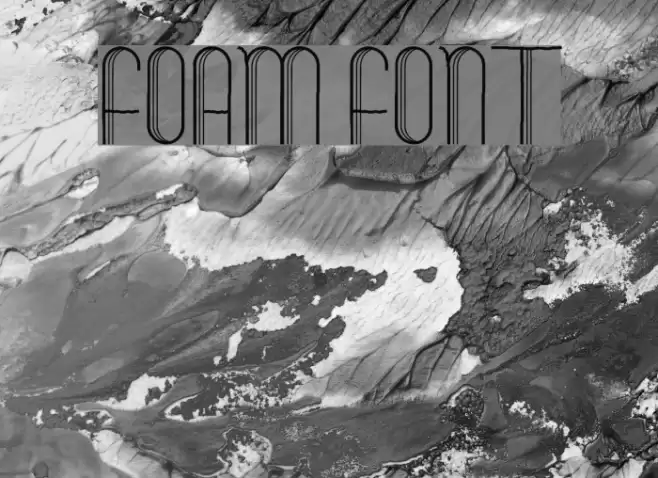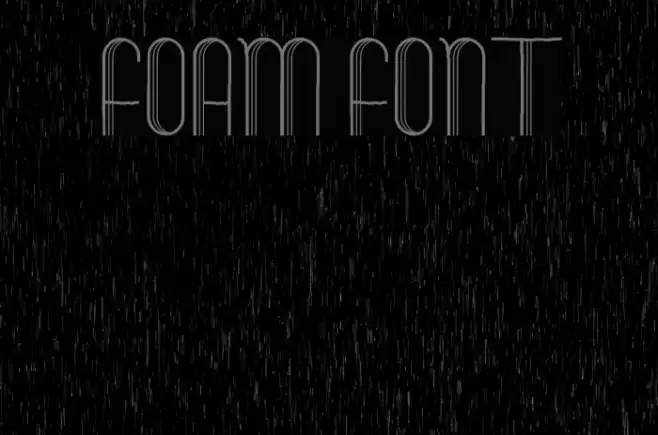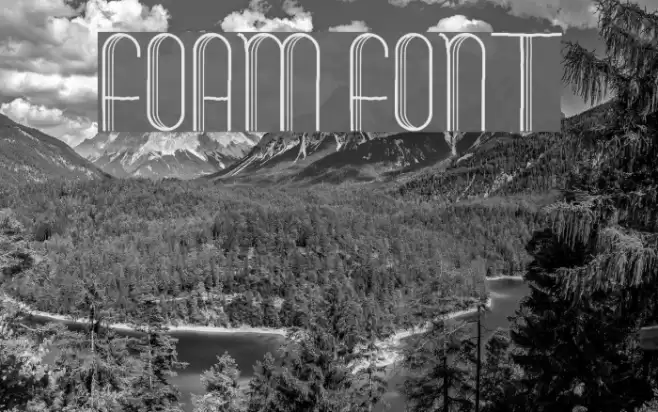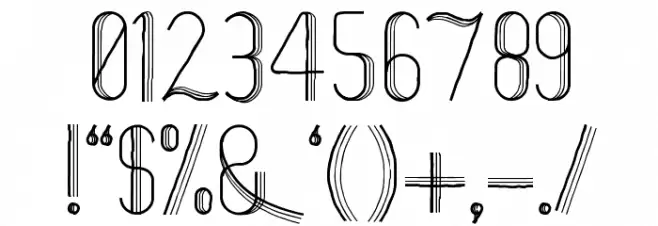
Foam Font
Foam Description
This font features a unique and modern design with a distinct multi-line style that gives it a dynamic and eye-catching appearance. The characters are composed of several parallel lines, creating a sense of movement and depth. The uppercase and lowercase letters maintain a consistent height, while the numerals and special characters follow the same design principle, ensuring uniformity across the typeface. The font's geometric structure and clean lines make it suitable for contemporary design projects, where a bold and artistic statement is desired.
A modern, multi-line font with a dynamic and geometric style from Uncategorized fonts.
- Proposed Projects: Ideal for branding, posters, album covers, and any project requiring a bold, artistic touch.